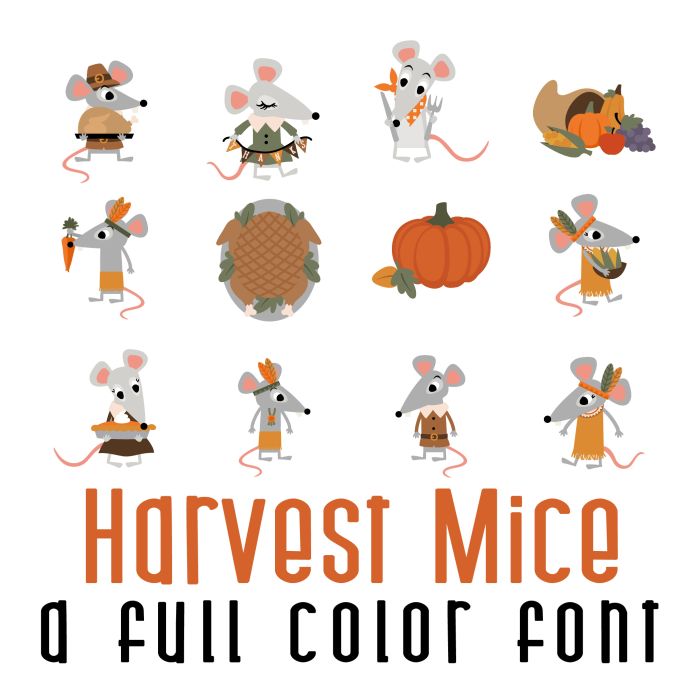
This fun full color font features 26 Fall Harvest mice perfect for cards, crafts, gifts, classrooms, planner stickers, scrapbook pages, decor and more!